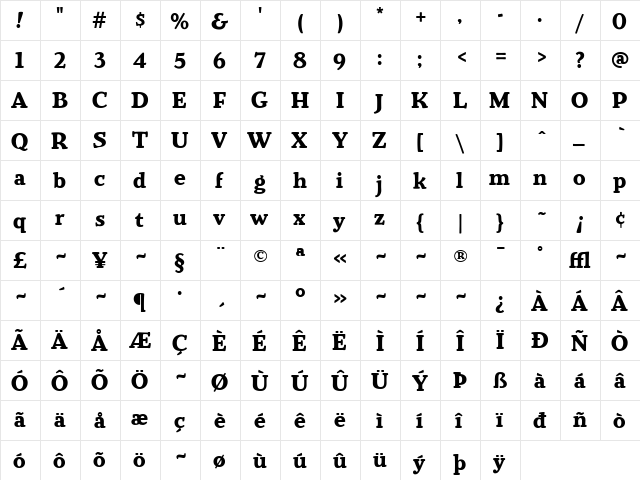
ShowcardModerne Regular
Design Context for ShowcardModerne Typeface
ShowcardModerne is a composed and adaptable typeface that performs quietly and consistently across a wide range of design contexts.